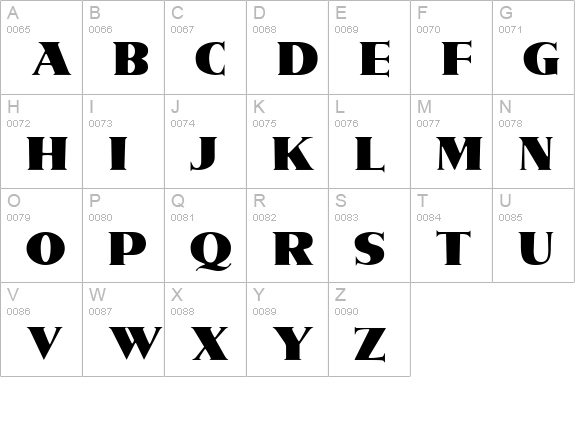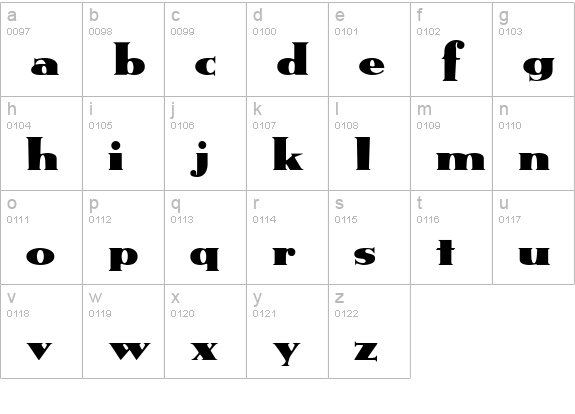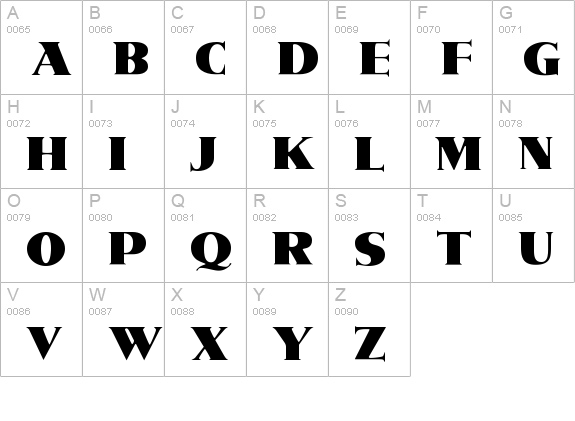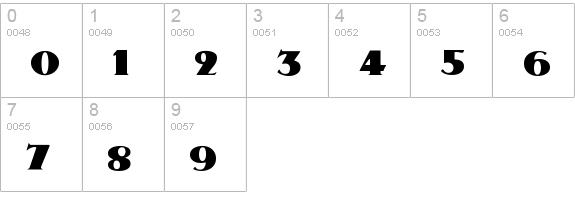
Tatio Display SSi Font Details
Tatio Display SSi font is a stunning typeface that exudes elegance and sophistication. With its unique design and graceful curves, this font is perfect for adding a touch of refinement to any project. Whether you're creating a logo, designing a website, or crafting a beautiful invitation, Tatio Display SSi font will elevate your work to new heights. One of the best things about Tatio Display SSi font is that it is free. Yes, you read that right! This exceptional font is freely available to download at FontsMarket.com. Now you can enjoy the beauty and versatility of Tatio Display SSi font without breaking the bank. With Tatio Display SSi font, your creativity knows no bounds. Its clean lines and balanced proportions make it incredibly versatile, allowing it to seamlessly fit into any design style. Whether you prefer a modern and minimalist approach or a more traditional and ornate aesthetic, this font will effortlessly adapt to your vision. Not only does Tatio Display SSi font look amazing, but it also delivers exceptional legibility. Each letter is meticulously crafted, ensuring clarity and readability at any size. From small captions to large headlines, your message will be conveyed with utmost precision and impact. The wide range of weights and styles available in Tatio Display SSi font further enhances its versatility. Whether you need a bold and eye-catching headline or a subtle and understated body text, this font has got you covered. With its extensive font family, you have the flexibility to experiment and find the perfect combination for your project. So why wait? Elevate your design game with Tatio Display SSi font, a truly remarkable typeface that is freely available to download at FontsMarket.com. Don't miss out on the opportunity to add this gem to your font collection and take your designs to the next level of excellence.